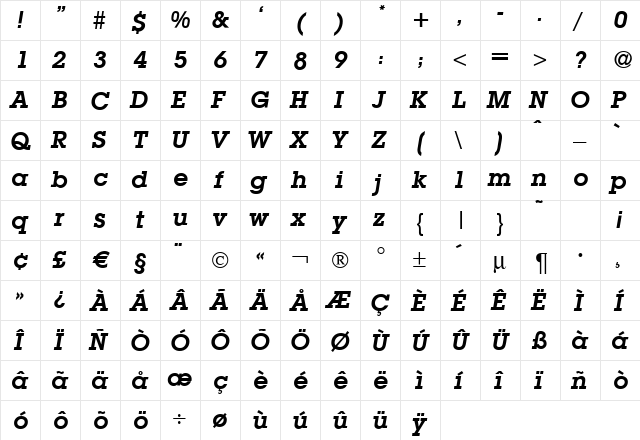
L850-Slab BoldItalic
Design Context for L850-Slab Typeface
L850-Slab features prominent, blocky serifs that give it a confident, grounded presence — equally at home in editorial settings and bold branding work. The dynamic lean of this cut emphasises speed and emphasis in any layout. The heavy weight commands attention and anchors typographic hierarchies.
Works well in editorial design, news publishing, impactful branding, and poster typography.
Pro Tip: Try L850-Slab set tight in headlines for a classic editorial feel. Its slab serifs create strong horizontal rhythm that anchors a page layout.